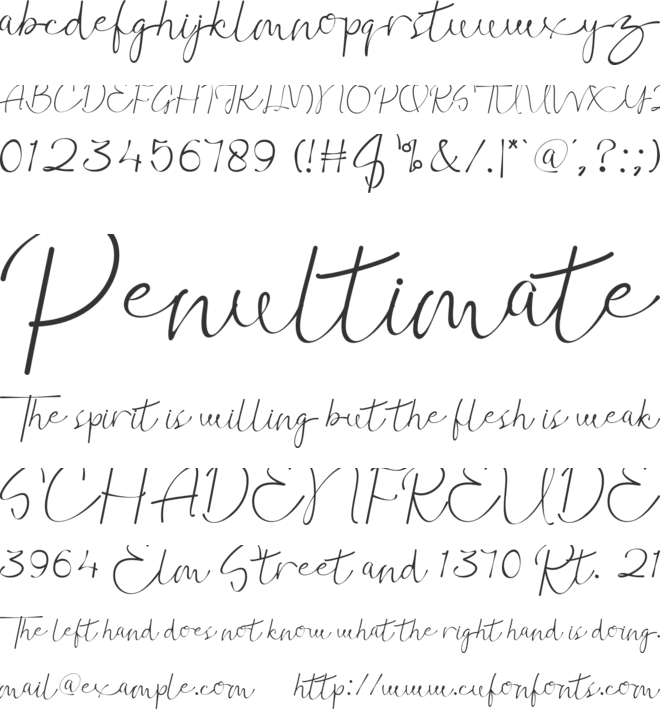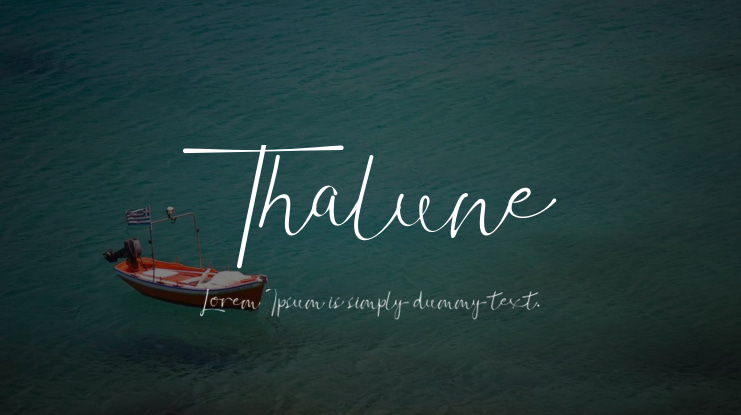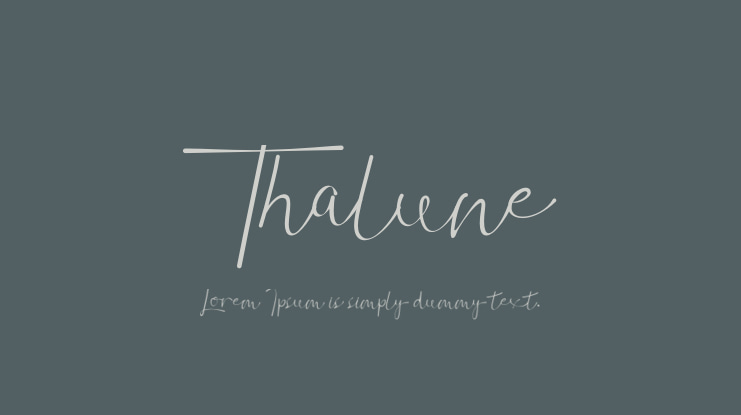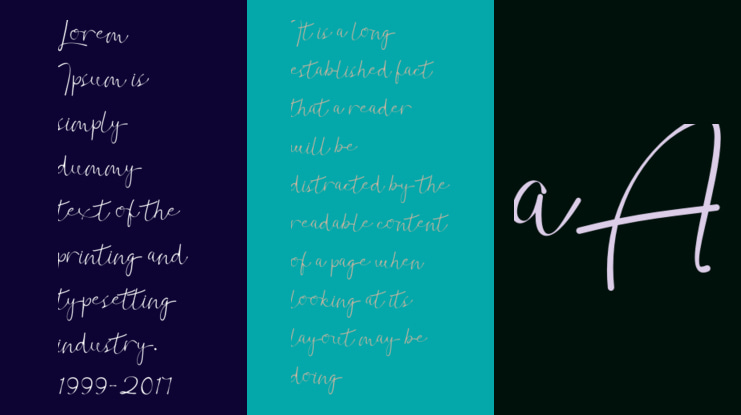
Thalune Font
Introducing "Thalune" is a sleek and elegant script font designed to bring a touch of sophistication and charm to any project. Its flowing, handcrafted strokes create a sense of effortless grace, making it perfect for logos, invitations, branding, packaging, and social media graphics.
-Numeral and Punctuation